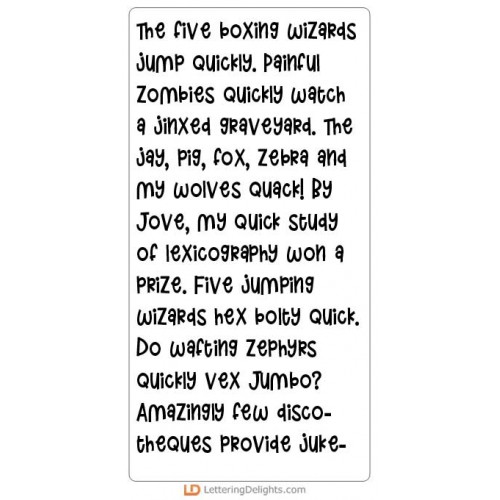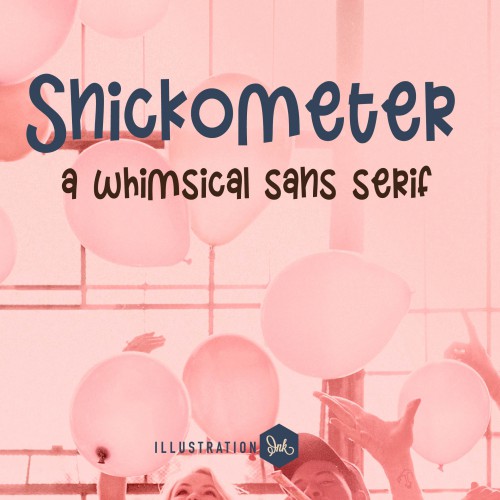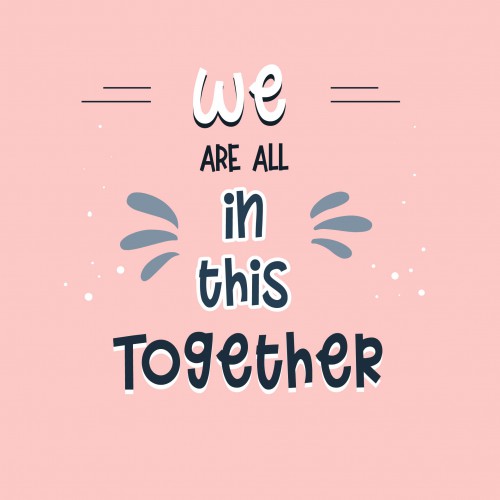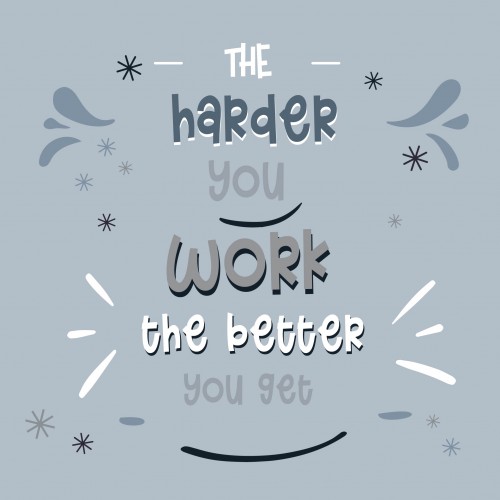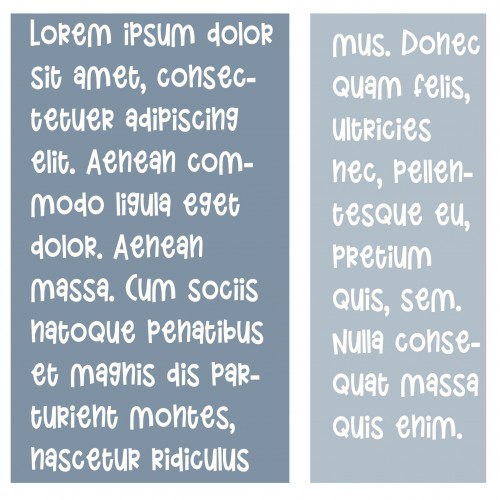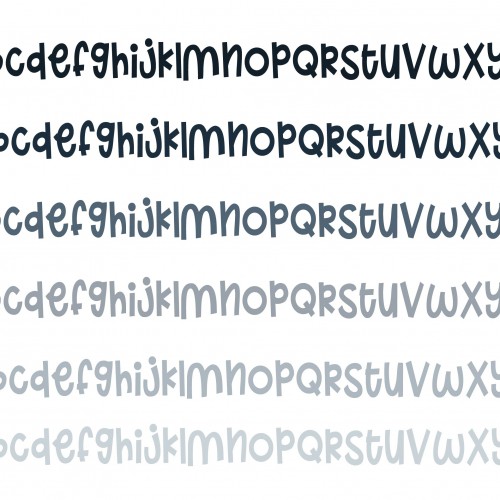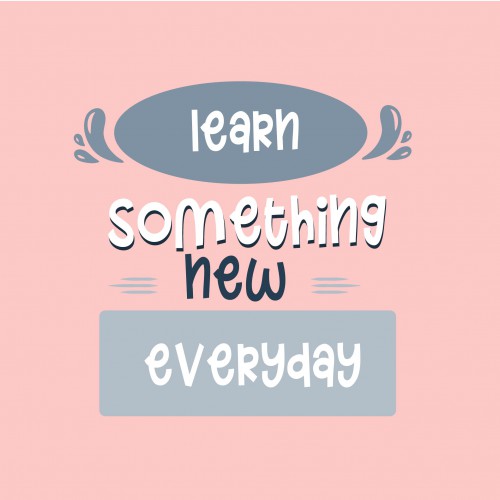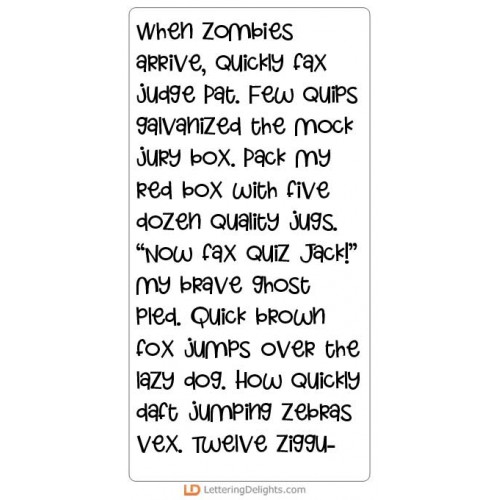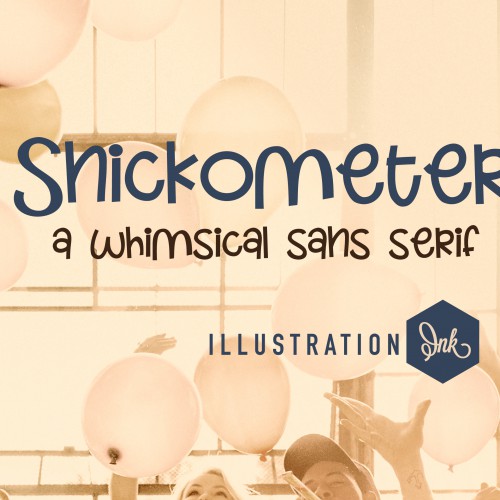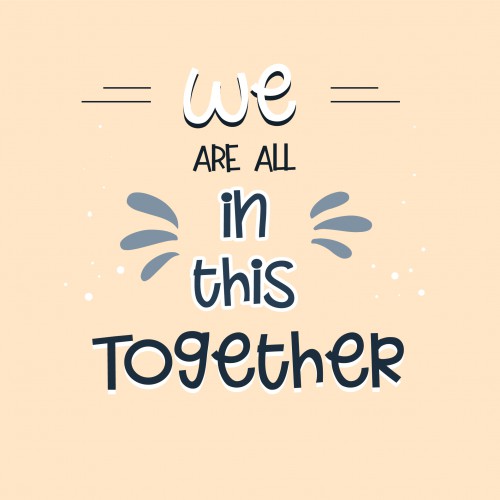
ZP Snickometer Condensed Bold - FN
This simple, hand-written print has a youthful feel...
ZP Snickometer - FN
This simple, hand-written print has a youthful feel...
DB Carrot Couture - Characters - DB
This adorable doodlebat font features 26 carrot emoji characters perfect for Easter, cards, crafts, ..
Carrot Couture - GS
This adorable graphic set features 26 carrot themed imagery perfect for Easter, cards, crafts, gifts..
Carrot Couture - CS
This adorable cuttable graphic set features 26 carrot themed imagery perfect for Easter, cards, craf..
Carrot Couture - Characters - GS
This adorable graphic set features 26 carrot emoji characters perfect for Easter, cards, crafts, gif..
Carrot Couture - Characters - GS
This adorable cuttable graphic set features 26 carrot emoji characters perfect for Easter, cards, cr..
Carrot Couture - CP
This fun cut project set features adorable bunny gift bags and gift boxes. Easy to create and perfec..
Carrot Couture - PP
This fun paper pack coordinates with our Carrot Couture Collection...
Carrot Couture - AL
This fun alphabet coordinates with our Carrot Couture Collection...